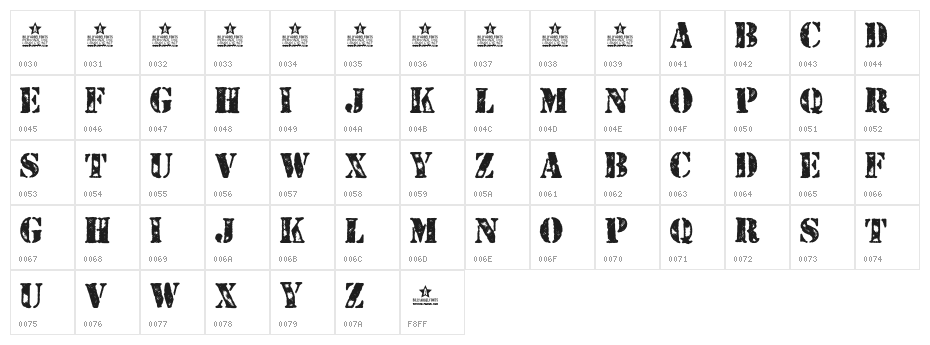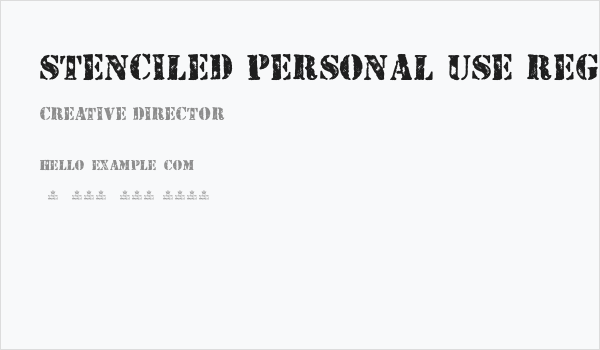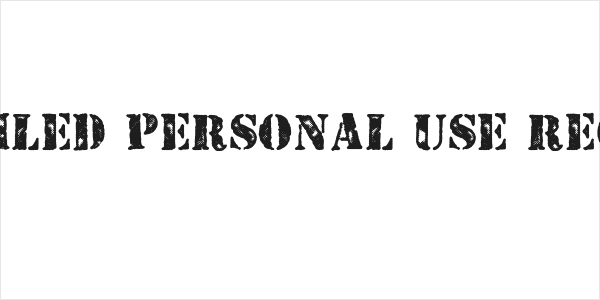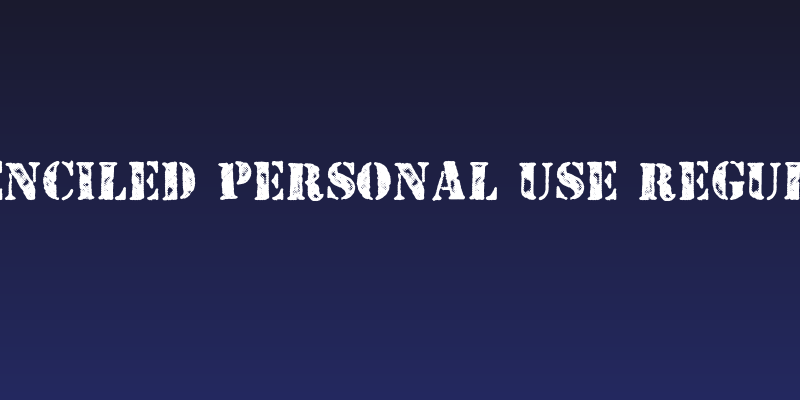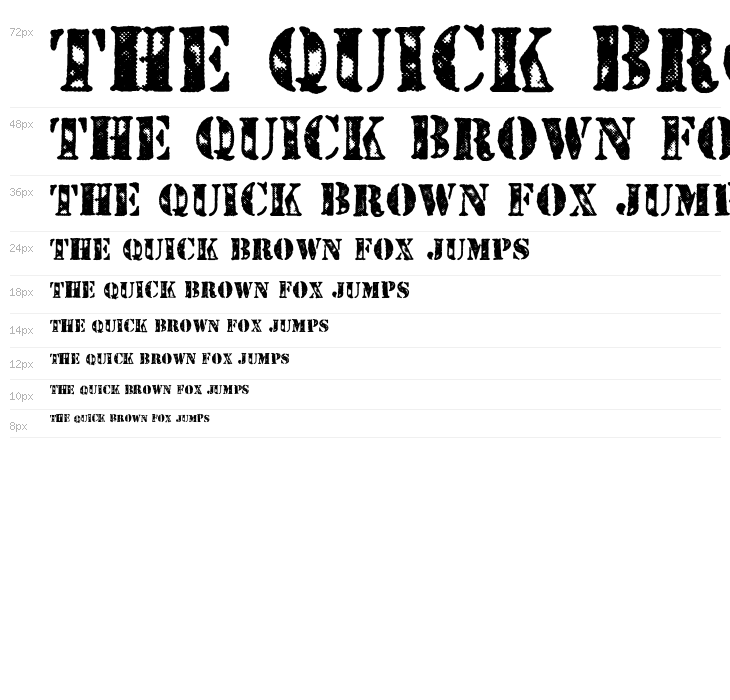
STENCILED PERSONAL USE Regular Font
STENCILED PERSONAL USE Regular Description
This font features a bold, stencil-like design with a rugged and distressed appearance. The characters are uppercase with a consistent thickness, giving them a strong and impactful presence. The distressed texture adds a vintage and industrial feel, reminiscent of military or industrial stencils. The letters are well-spaced, ensuring readability while maintaining the unique style. This font is ideal for projects that require a bold statement and a touch of ruggedness.
| Overall Style | Vintage, Industrial |
| Proposed Projects | Ideal for posters, logos, branding, and any design needing a bold, industrial aesthetic. |